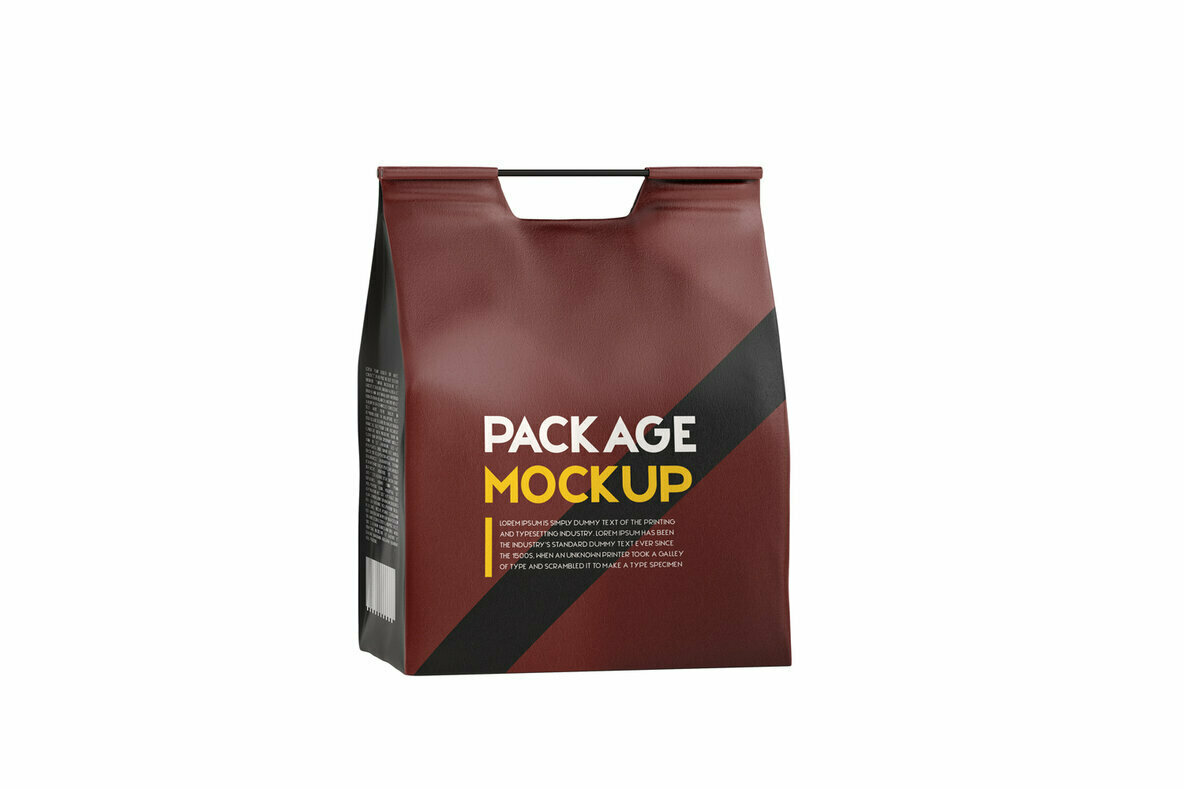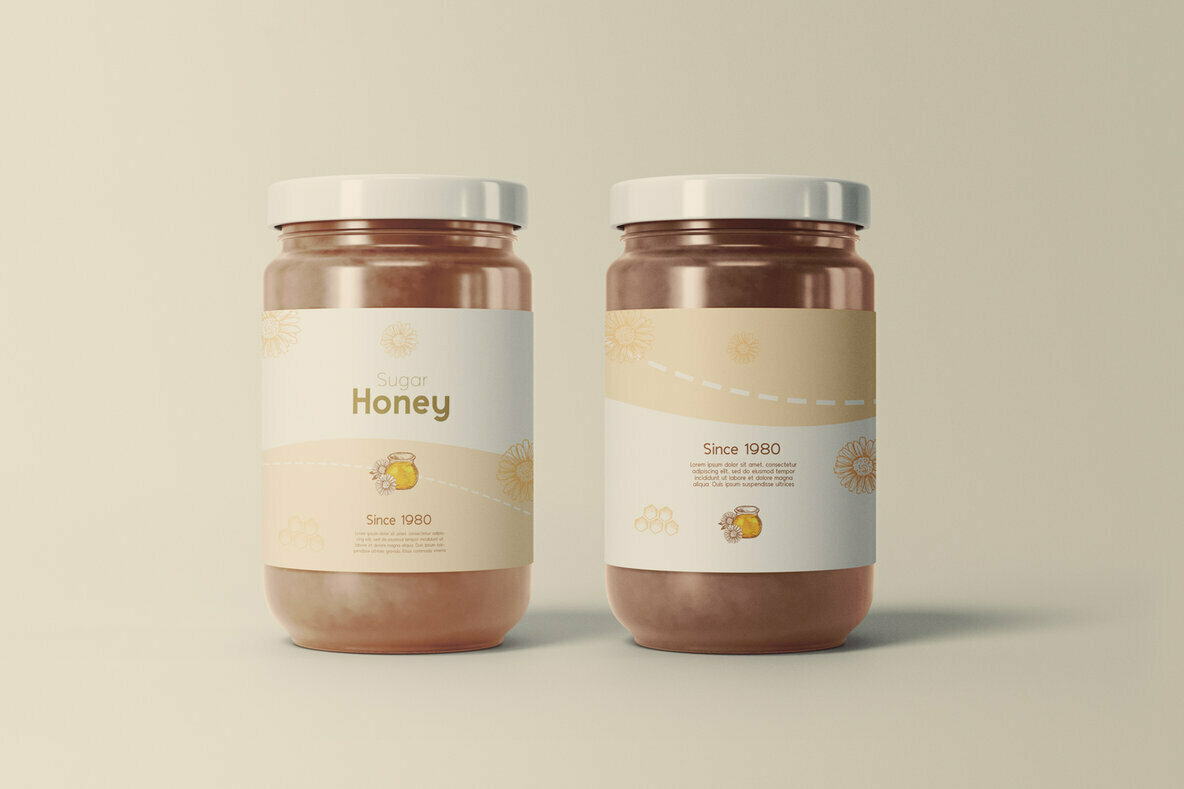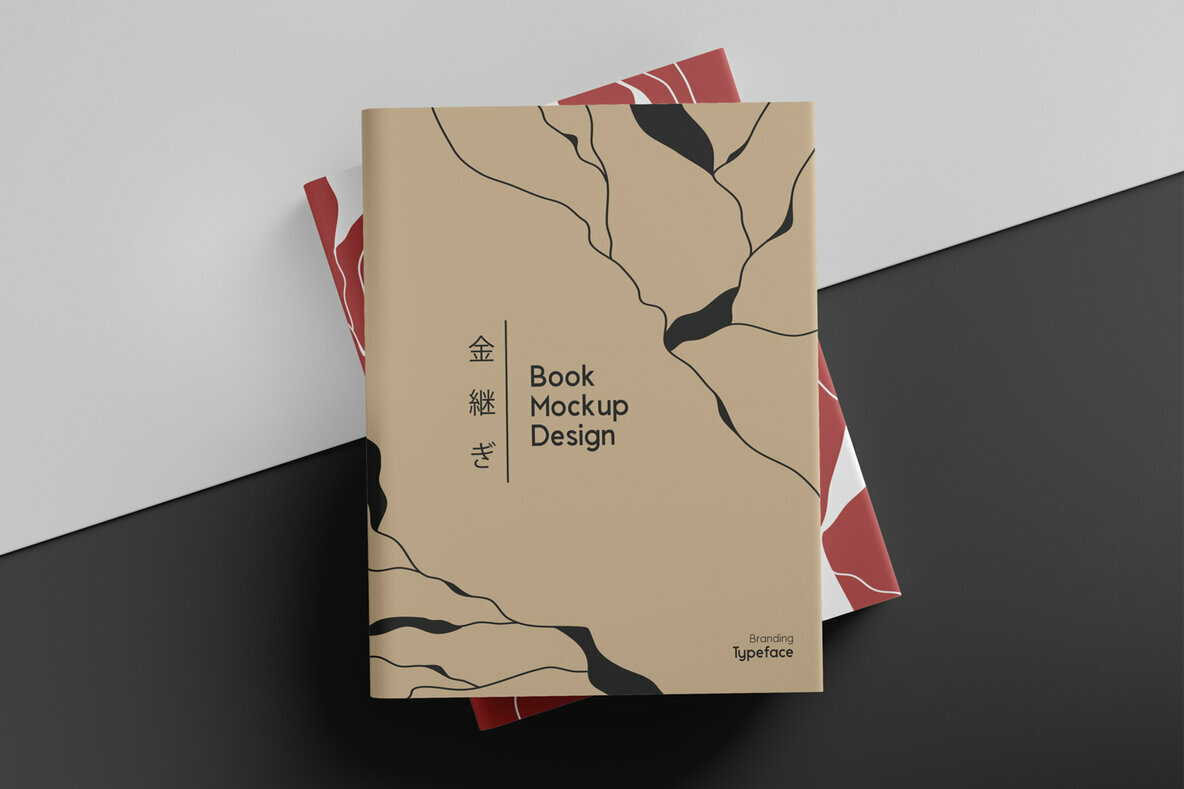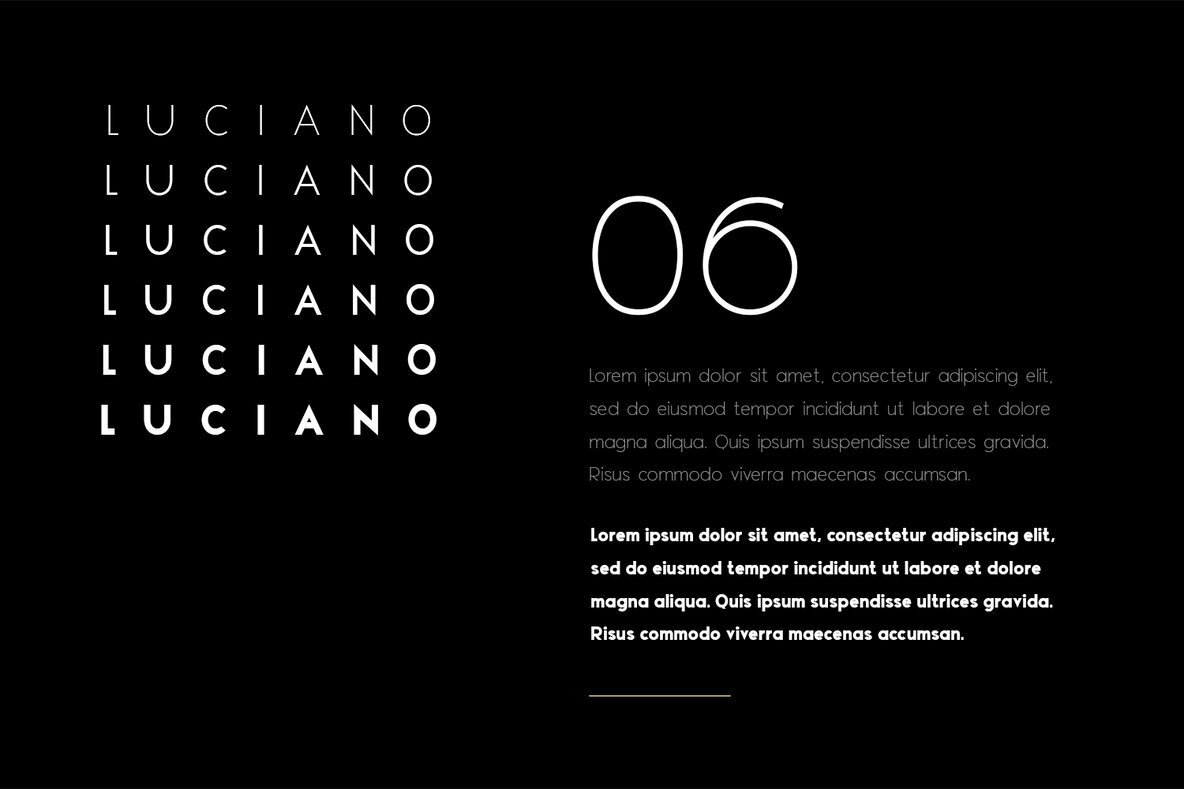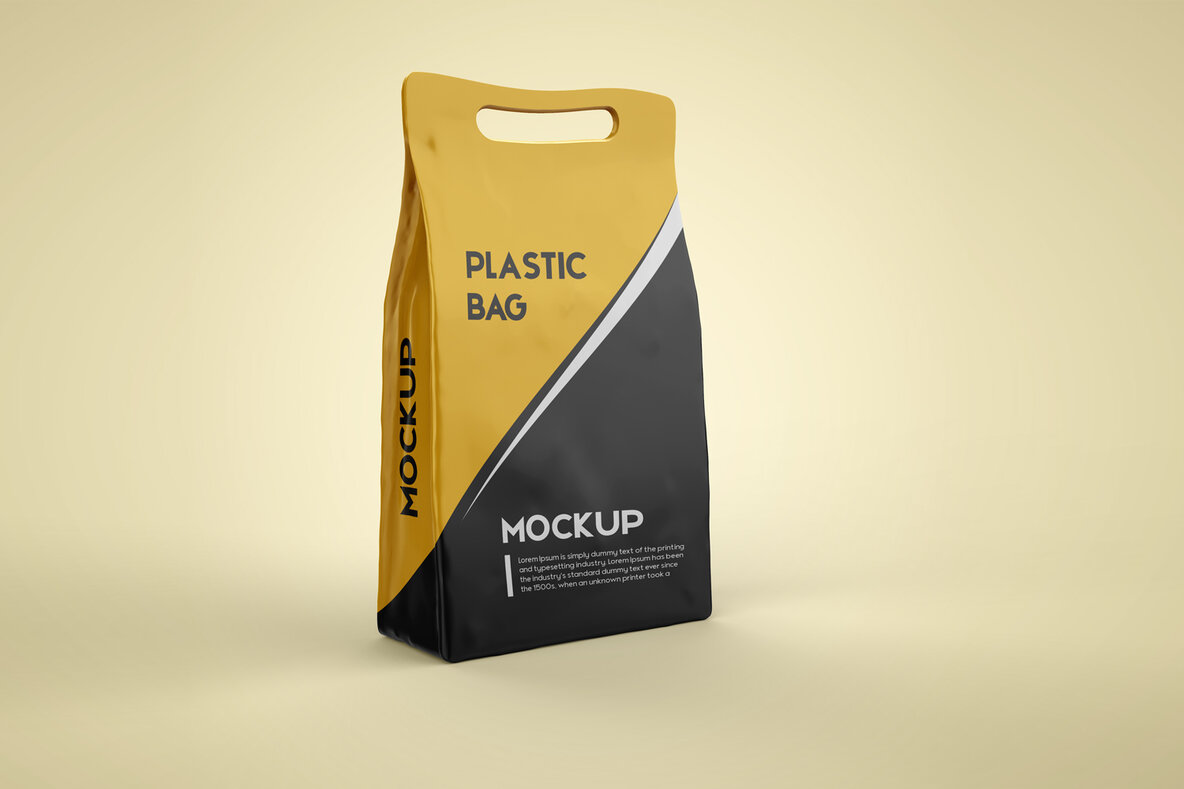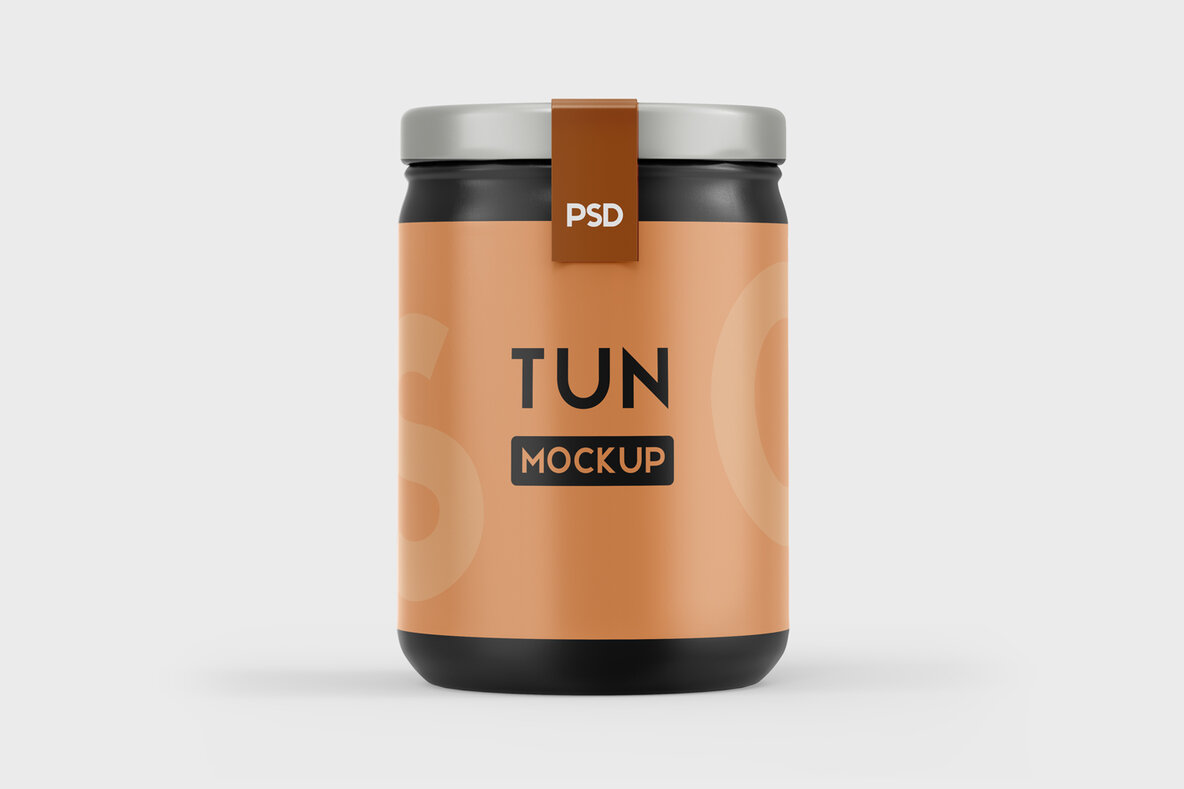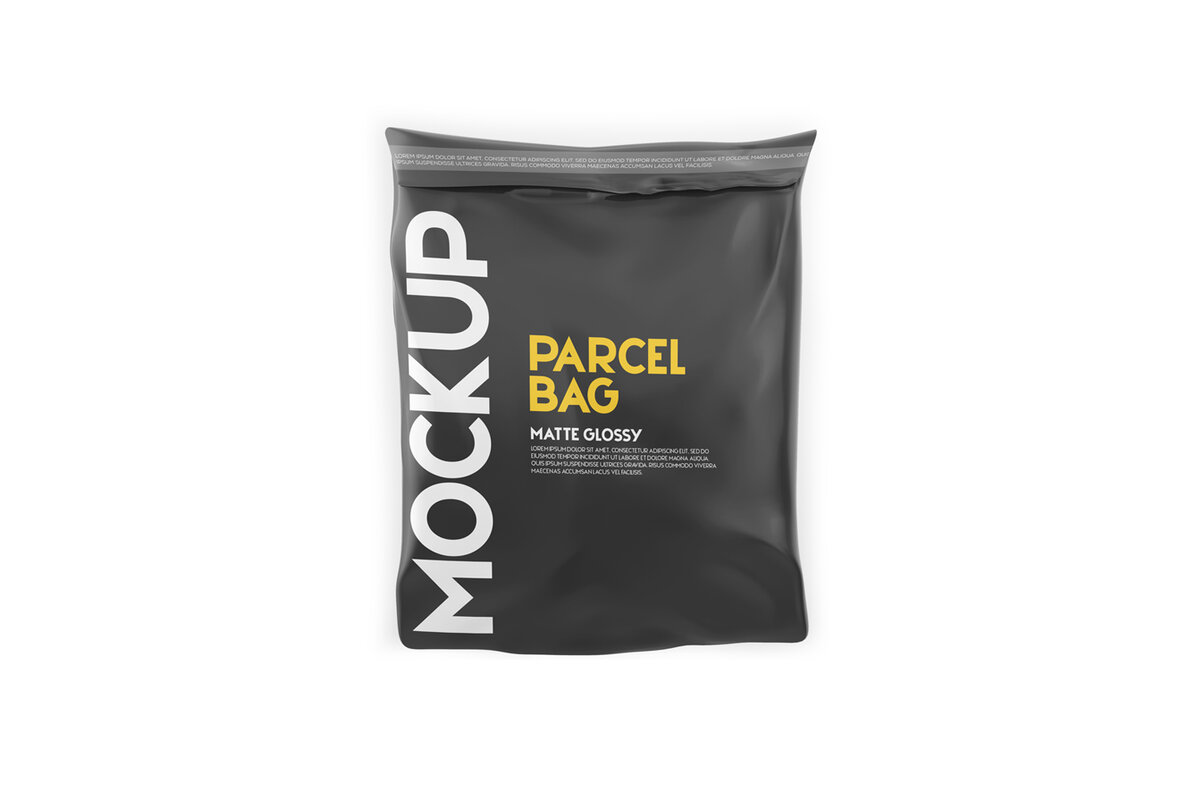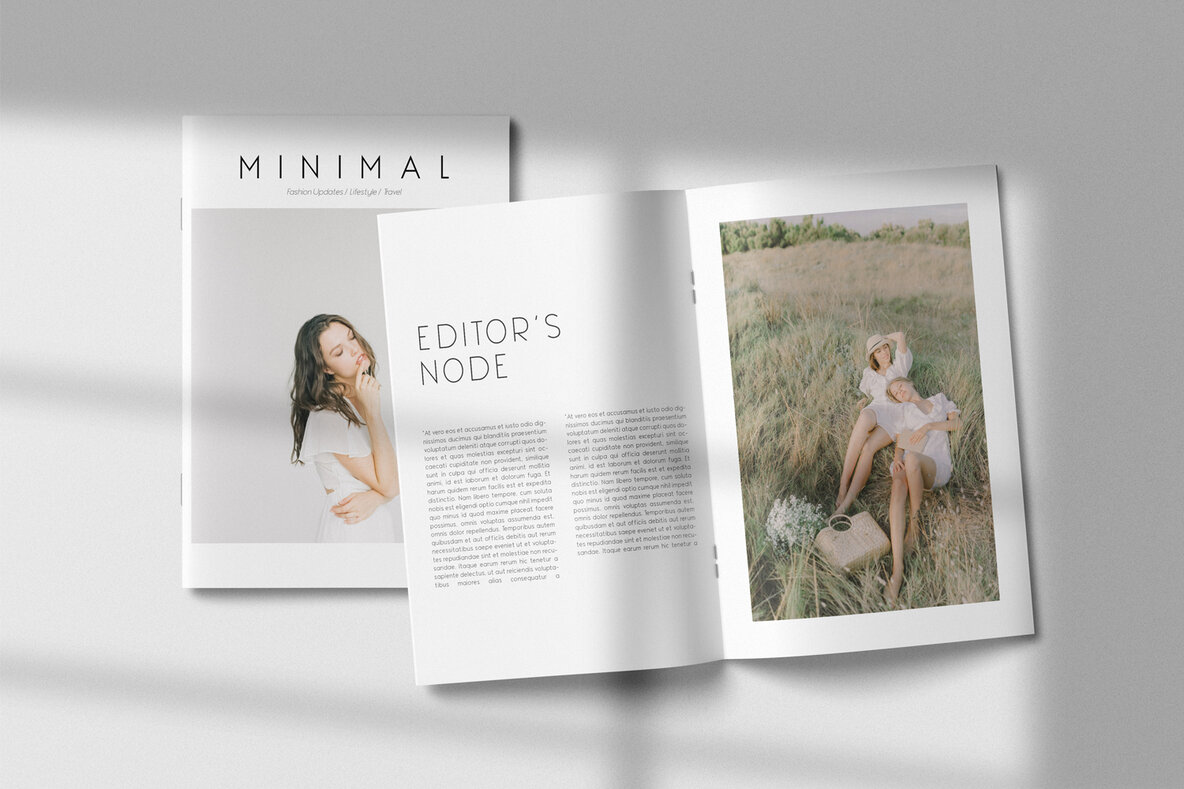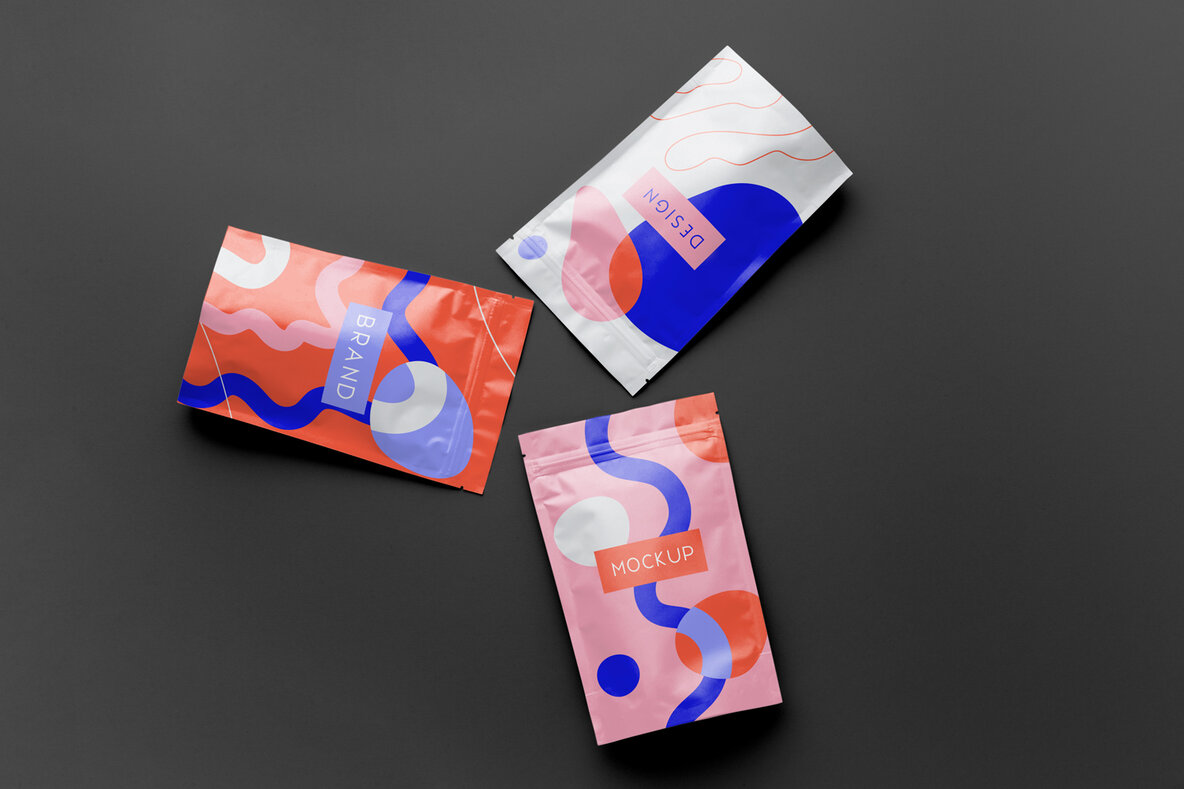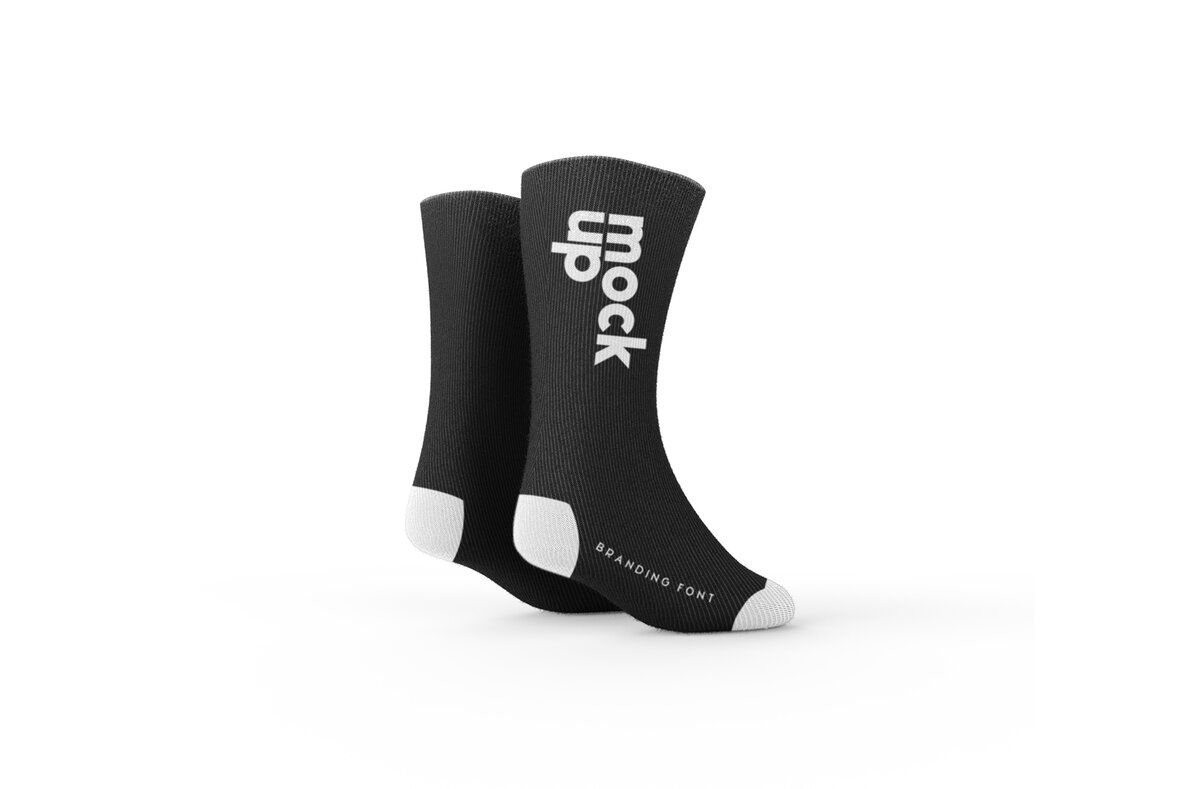
Luciano Display Font
Luciano Display presents a unique blend of modern elegance and functionality, making it an excellent choice for designers. Its versatility makes it equally effective in large titles or small print, perfect for branding, logos, and editorial headlines. The typeface offers a clean, minimalist aesthetic with a hint of warmth and quirkiness, ensuring readability and visual appeal across a wide range of applications. Features:Luciano Display: A Versatile Typeface for Modern Design